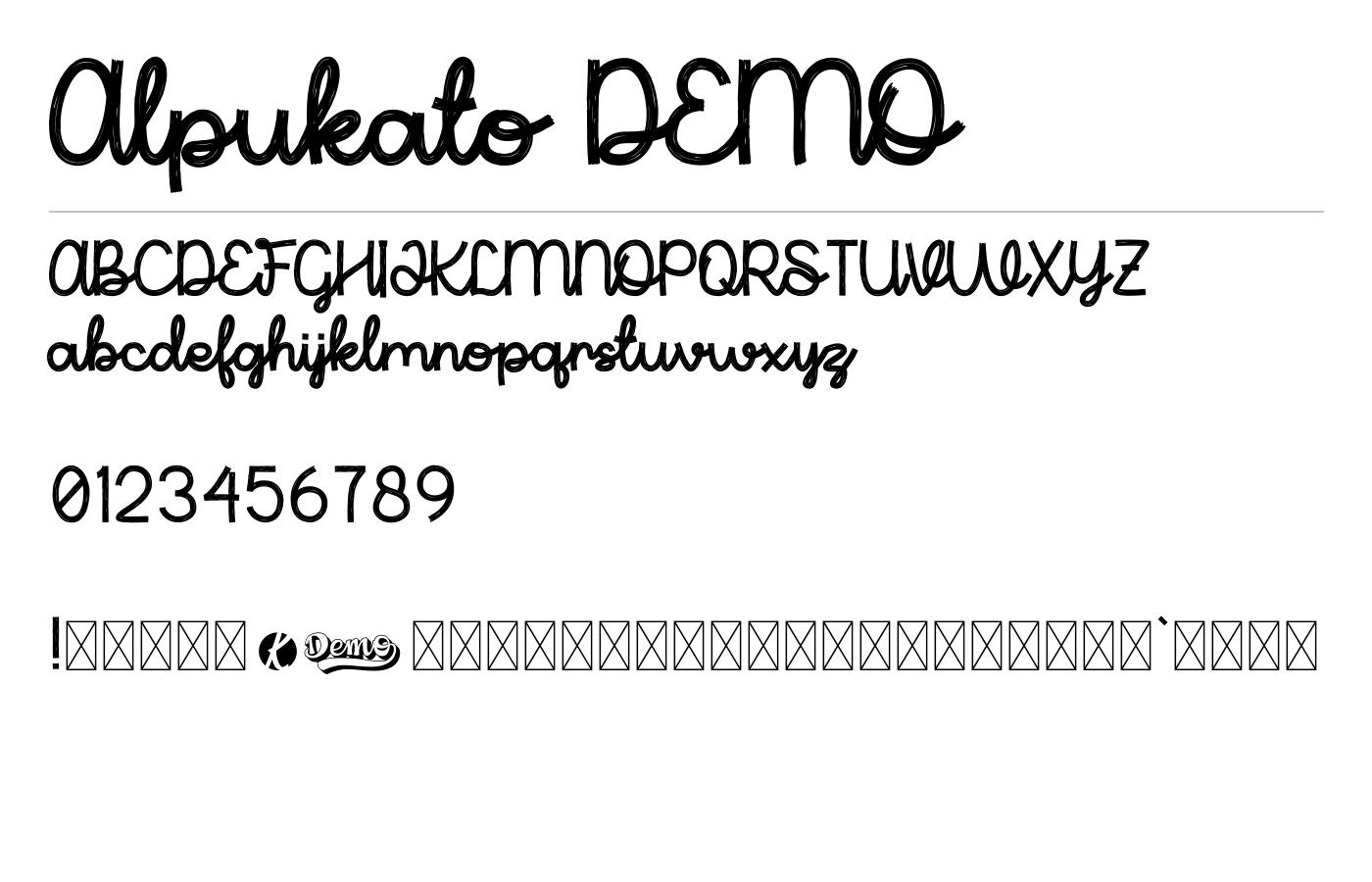
Alpukato is a playful, hand-drawn script font with a casual and friendly feel, featuring rounded, slightly irregular letterforms that offer a lively and informal attitude. Its lightweight strokes and unique character shapes make it perfect for creative projects, children’s materials, and branding that seeks to convey warmth and approachability. This font works well in headlines, logos, and packaging where a fun and personal touch is desired.
Alpukato Font
About Alpukato Font